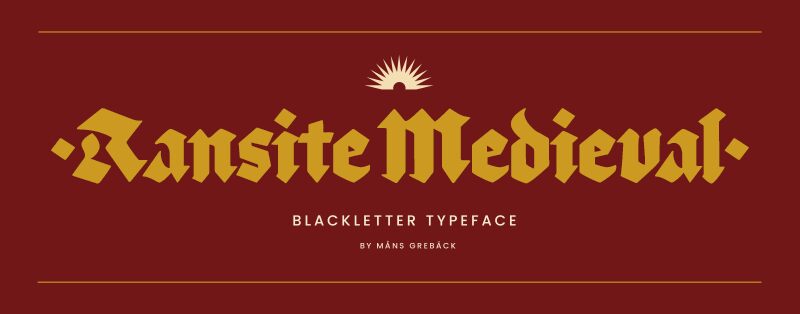
Ransite Medieval is a bold, gothic font designed by Mans Greback. With its modern style, this font adds a unique twist to classic medieval designs. Perfect for any project needing a touch of timeless elegance and sophistication, Ransite Medieval is an ideal choice for poster designs, book covers, or logos. It is certain to bring an eye-catching quality to any project it graces.